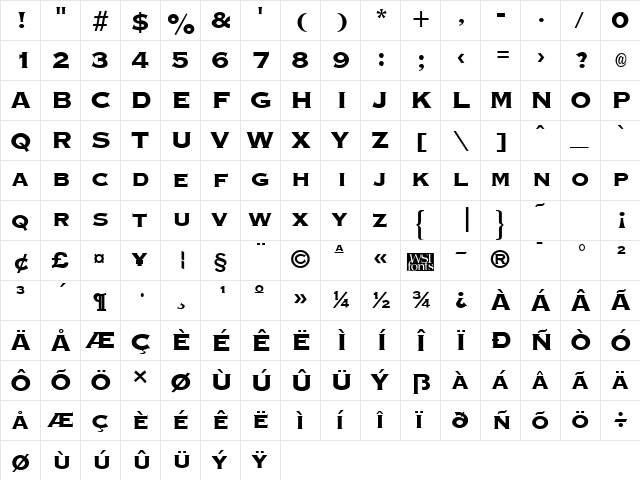
GraverplateExtrabold Regular
Design Context for GraverplateExtrabold Typeface
GraverplateExtrabold takes a measured approach to typography — its balanced proportions and neutral character make it a reliable workhorse for both digital and print work. Its bold stroke weight gives it real presence on the page.